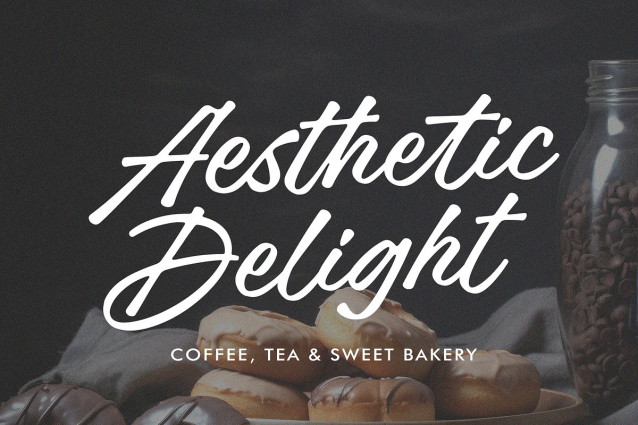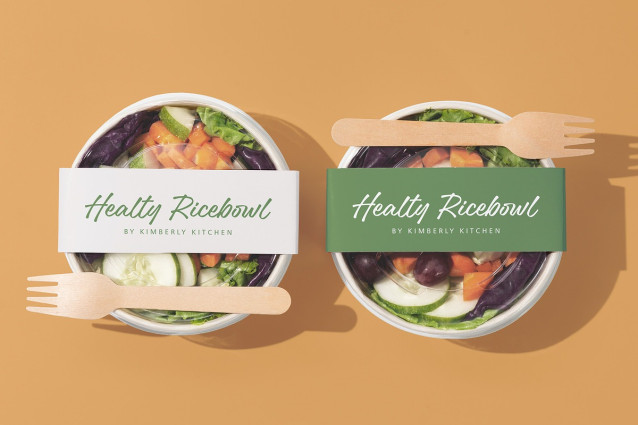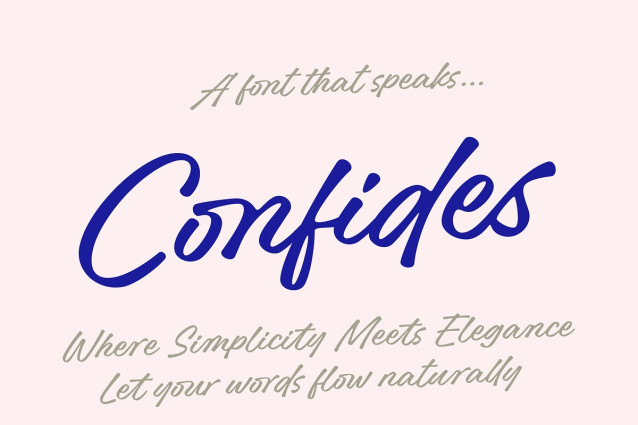
Confides Handwritten Font
Confides Handwritten Font, a handwritten font that captures the natural beauty of handwriting. With its smooth strokes and relaxed rhythm, this font brings a personal, friendly touch to any design—from branding and packaging to wedding invitations and social media quotes.
Casual yet sophisticated, this font balances modern simplicity with classic warmth. Whether you’re crafting a heartfelt message or creating a stylish image, its timeless flow will always feel fresh, familiar, and beautifully human.